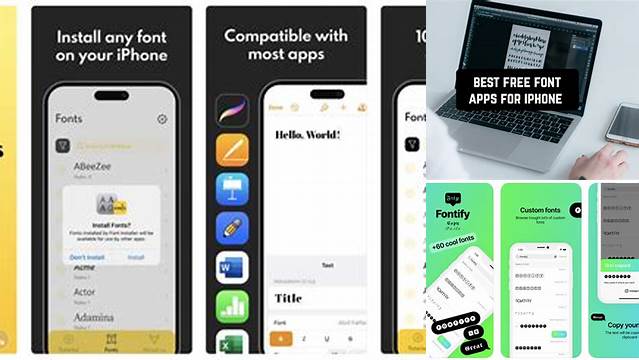
Best IPhone Font Apps (Free & No Subscription)
Hey guys! Ever looked at your iPhone and thought, "Man, I wish I could jazz up these fonts a bit?" You're not alone! iPhones come with some pretty standard fonts, but sometimes you want a little pizzazz – a different style to make your messages, notes, and social media posts pop. The good news? There are tons of amazing font apps out there for your iPhone, and a bunch of them are totally free and don't require any pesky subscriptions. We're talking no monthly fees, no hidden costs – just pure, font-tastic fun. I've done some digging, looked through Reddit (because, you know, the internet knows everything!), and compiled a list of the absolute best free font apps for iPhone that'll have you stylin' in no time. So, buckle up, and let's dive into the world of awesome iPhone fonts! This guide is designed to help you discover the perfect font app for your needs, whether you're a casual user or someone who loves to get creative with typography.
H2: Free iPhone Font Apps: Why Bother?
Okay, so why should you even bother with a free font app for your iPhone? Isn't the default font good enough? Well, sure, it's functional, but think about it: your phone is a reflection of you. It's a tool for communication, creativity, and self-expression. Using the same font as everyone else? Kinda boring, right? Free font apps let you: Express Your Personality: Different fonts evoke different moods. A playful font might be perfect for your Instagram stories, while a clean, professional font is great for work emails. Find fonts that match your vibe and show off your unique style. Enhance Readability: Sometimes the default font can be a little…well, boring. A new font can make your text easier to read, especially if you have visual impairments or just prefer a different style. This is especially true when it comes to long-form text, as different fonts can impact how quickly your brain processes the information. Boost Your Creativity: Whether you're a graphic designer, a blogger, or just someone who loves to create content, a diverse font library is a must-have. Experiment with different fonts to create stunning visuals and make your content stand out from the crowd. Free font apps give you access to a wide range of options without breaking the bank. Spice Up Your Social Media: Instagram, TikTok, Facebook – these platforms are all about visual appeal. Using cool fonts in your captions, stories, and bios is a great way to grab attention and increase engagement. Think of it as a subtle way to show off your personal brand and make a lasting impression. Save Money: Let's face it, subscriptions add up. With free font apps, you can access a huge library of fonts without paying a dime. This allows you to explore different styles and find the perfect fonts without any financial commitment. Who doesn't love free stuff?
So, basically, free font apps are a fantastic way to personalize your iPhone experience, boost your creativity, and make your content more engaging. And hey, they're free, so what do you have to lose?
H2: Top Free iPhone Font Apps – Reddit Recommendations
Alright, let's get down to the nitty-gritty: which free font apps are actually worth your time? I did some serious Reddit lurking (r/iPhone, r/fonts, and even some design subreddits) to find out what the community is raving about. Here's a rundown of the apps that consistently get high marks, along with some key features and what makes them stand out: Fonts by Moby: Easy Installation and Extensive Library: This app is a frequent recommendation on Reddit. Users love the simple installation process, which typically involves installing a profile in your iPhone settings. Moby offers a vast collection of fonts, including a mix of classic and modern styles. Many users praise the app's user-friendly interface, making it easy to browse and preview fonts. The ability to use the fonts in various apps, such as Instagram, WhatsApp, and iMessage, is another major selling point. The app's regular updates also ensure that you have access to the latest fonts and features. Fontify: Customization and Unique Styles: Fontify often pops up in discussions about the best font apps. It's known for its extensive range of unique and creative fonts. What makes Fontify special is its focus on customization options. You might find you can adjust the size and spacing of text, allowing for even greater control over your designs. For users who like a bit of flair, Fontify is a great option. Cool Fonts: Simple and Effective: If you're looking for an app that's easy to use and provides a solid selection of fonts, Cool Fonts might be your jam. It focuses on simplicity, making it ideal for users who don't want to get bogged down in complicated features. The app typically includes a good variety of fonts, perfect for everyday use in messaging and social media. The straightforward interface and quick font preview make it a popular choice. Font Styles: Comprehensive Collection: This app is frequently cited as having a very comprehensive font collection. You'll likely find a wide variety of fonts, from handwritten styles to sleek modern designs. The main draw is usually the breadth of its font library. Users appreciate having a one-stop shop for all their font needs. This is helpful if you want to have a lot of options without constantly switching apps. iFont: For the Advanced User: Although the free version has some limitations, iFont often comes up in conversations about font management. This app is primarily a font manager, allowing you to install and organize fonts on your iPhone. While the free version offers fewer fonts than some other apps, its advanced features make it ideal for users who want to upload and manage custom fonts (like those you might have downloaded from sites like DaFont or Google Fonts). It's great if you are willing to learn a little more about font management.